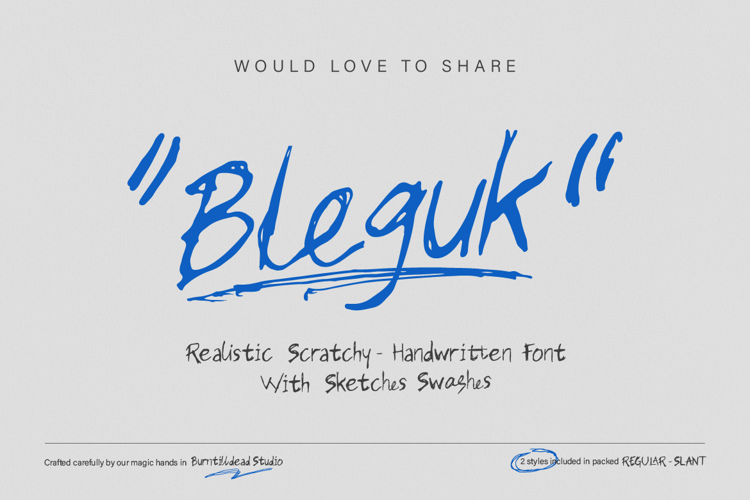
Bleguk Font
Bleguk is a scratchy handwritten font with sketch swashes & bold personality. Perfect for posters, journaling, and creative storytelling designs.